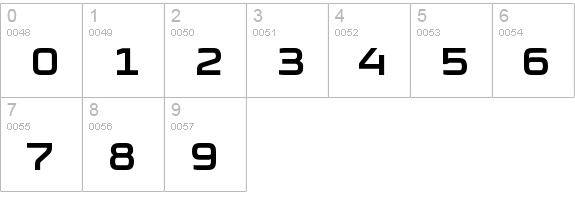
CubeWeb-ExexpBold W03 Regular Font Details
CubeWeb-ExexpBold W03 Regular is the standard, neutral variant in the CubeWeb typeface family \xE2\x80\x94 well suited to general body text, paragraphs, and standard typographic work.
CubeWeb-ExexpBold W03 Regular is a sleek and modern font that exudes confidence and sophistication. With its clean lines and bold presence, this typeface is perfect for making a statement in your designs. Whether you are creating a striking headline or a standout logo, CubeWeb-ExexpBold W03 Regular will add a touch of elegance to any project.